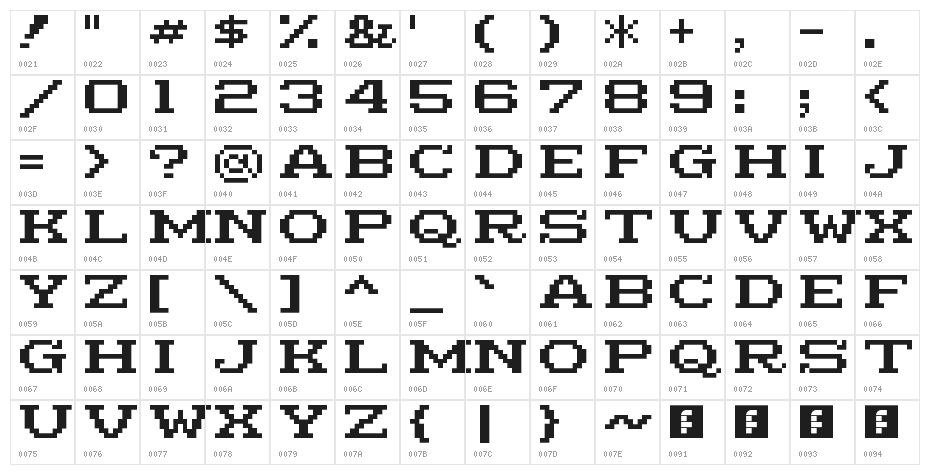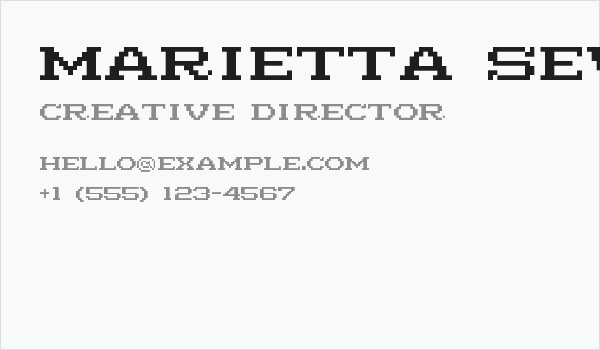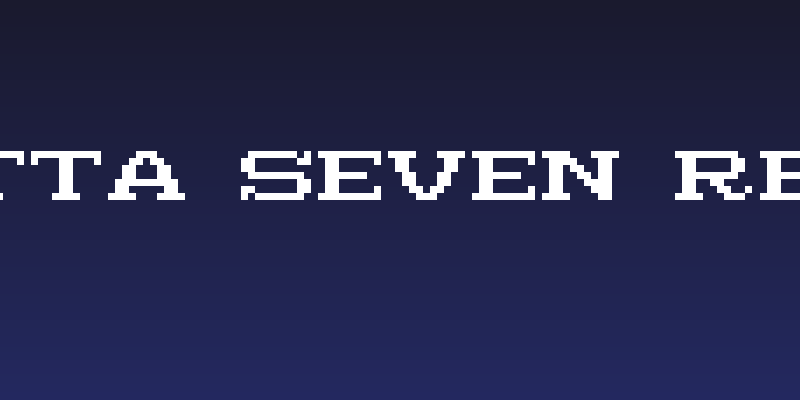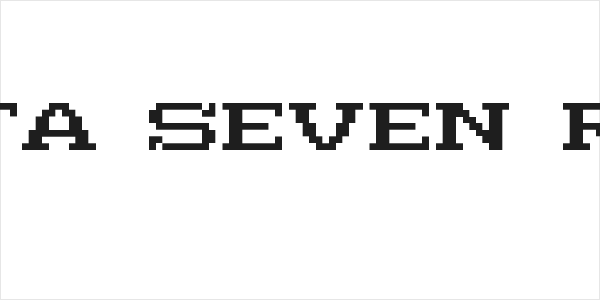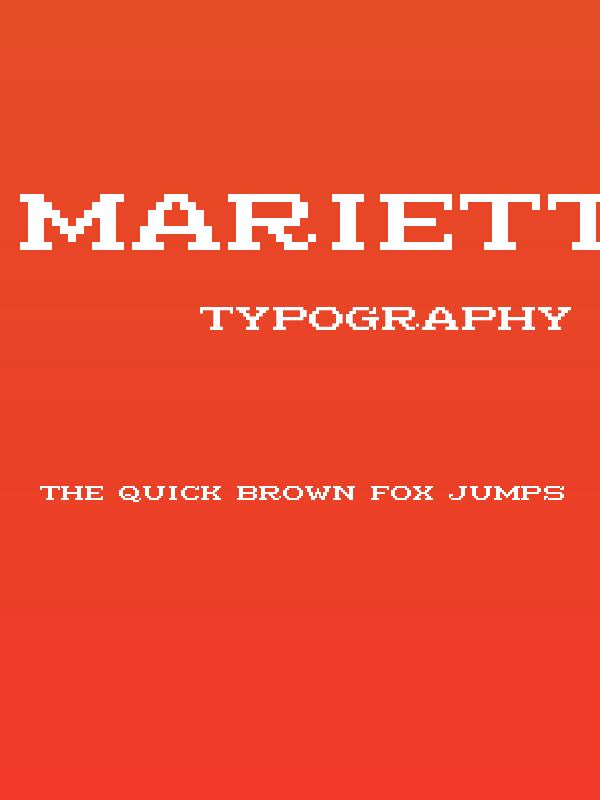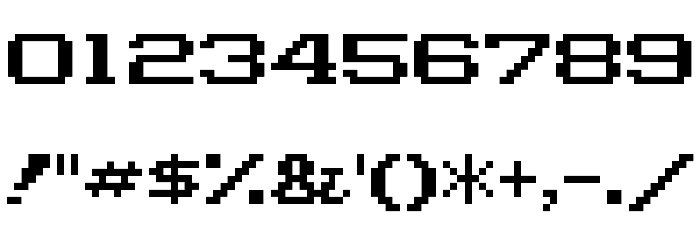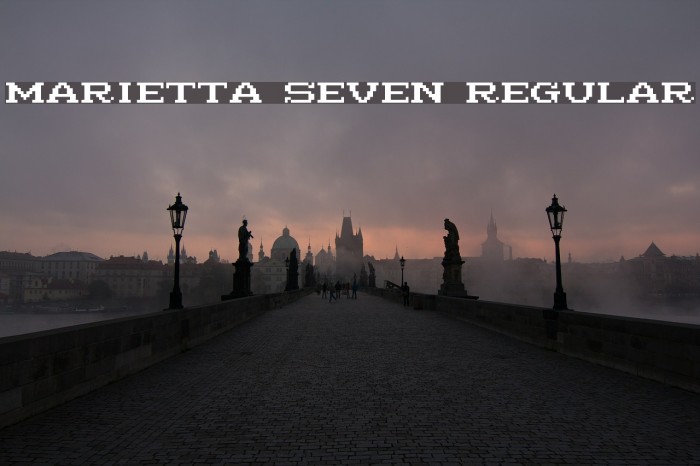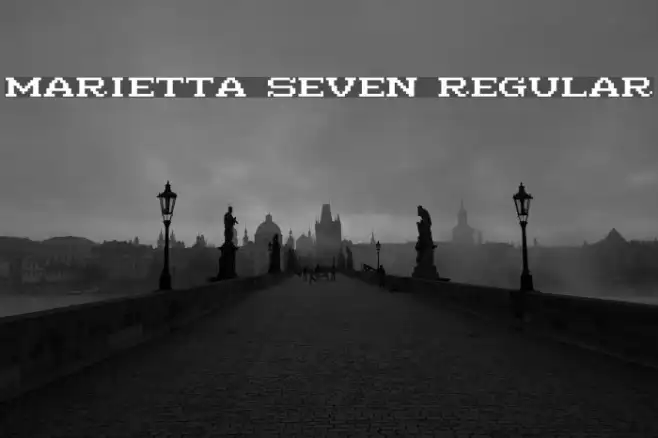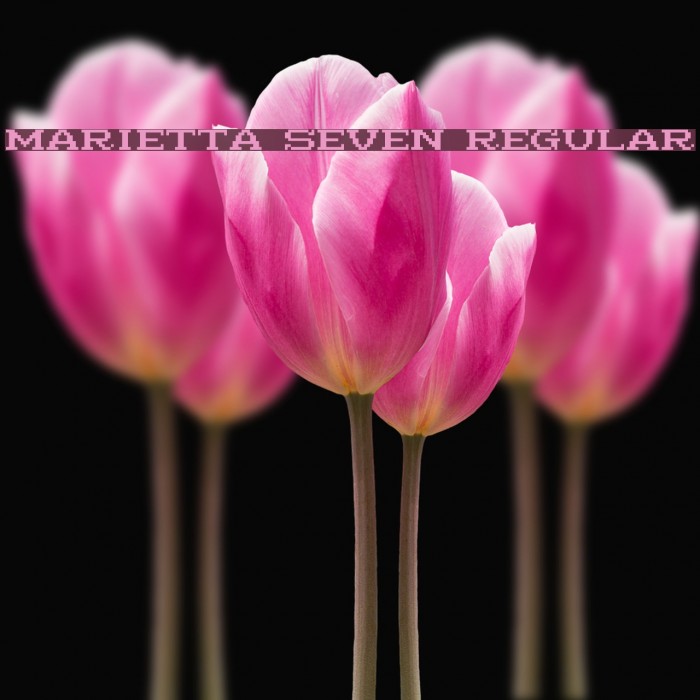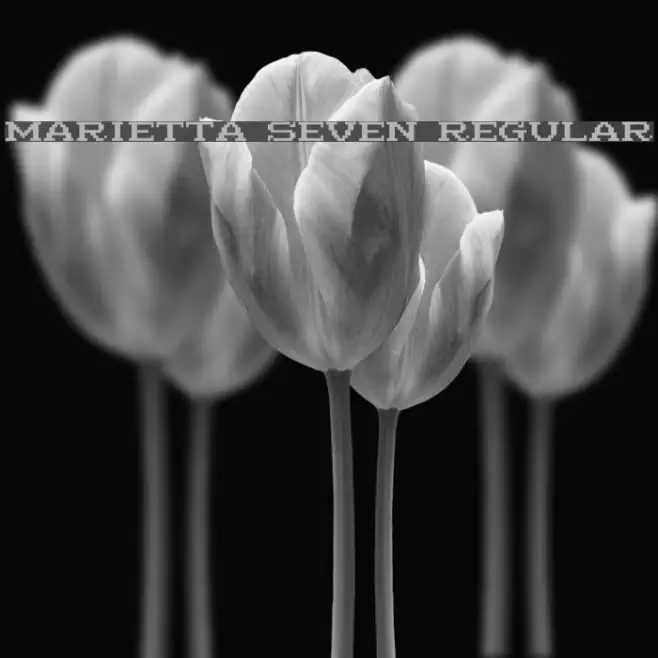
Marietta Seven Regular Font
Marietta Seven Regular Description
This font features a bold, geometric style with a strong presence. The characters are constructed with a pixelated, block-like appearance, giving it a retro, digital feel. The uppercase letters are uniform in height, while the lowercase letters maintain a consistent style, enhancing readability. Numbers and special characters follow the same design principles, ensuring a cohesive look across all glyphs. The font's structure is reminiscent of early computer graphics, making it ideal for projects that aim to evoke nostalgia or a tech-inspired aesthetic.
| Overall Style | Retro, Digital |
| Proposed Projects | Ideal for video game design, tech-themed posters, retro websites, and digital art projects. |